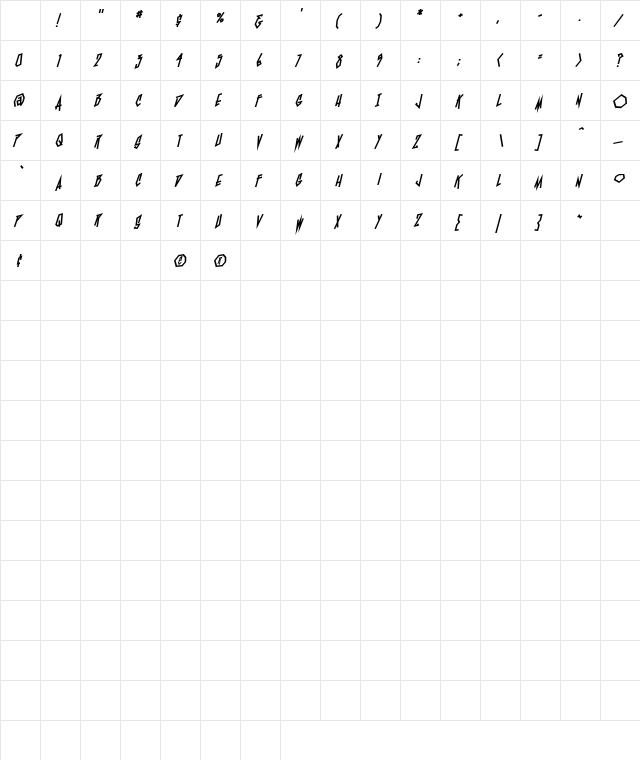
Complete BlamBlam Heavy BB Regular glyph index. Displaying only characters natively supported by BlamBlam Heavy BB Regular font.
BlamBlam Heavy BB is a composed and adaptable typeface that performs quietly and consistently across a wide range of design contexts.